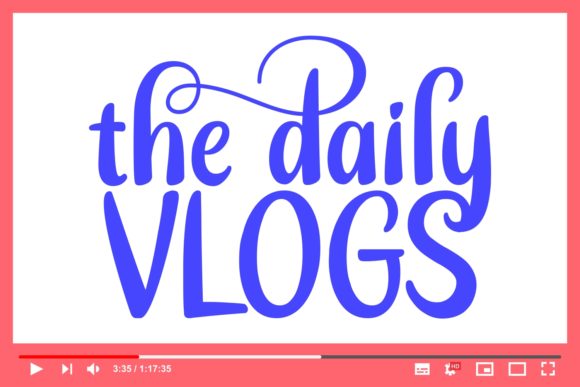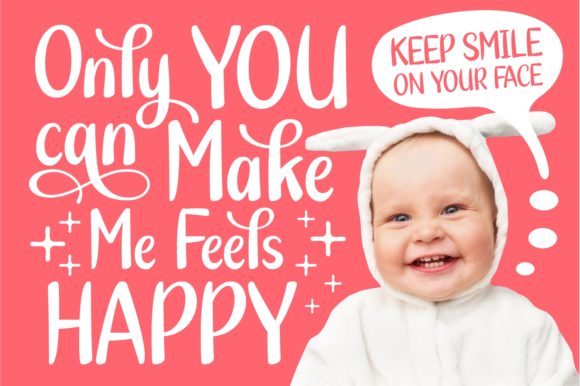
The Daily Vlogs Font
The Daily Vlogs is the ideal script to give your designs an authentic, handcrafted feel. This gorgeous font is perfectly suited to elevate any signature, stationery, logo, typography quotes, magazine or book covers, website headers, flyers, clothing, branding, packaging design and more. Fall in love with its effortless charm.